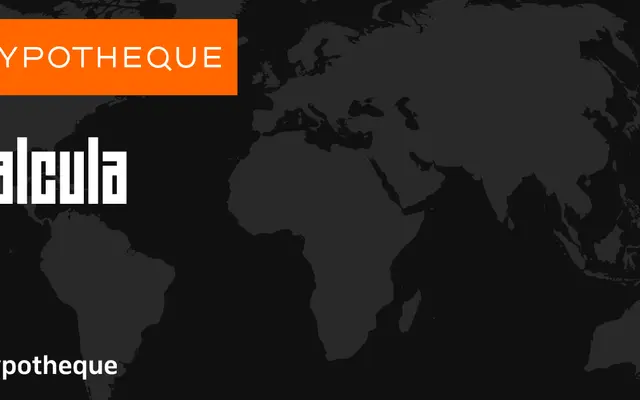
Calcula
A modular display family from Typotheque built across five visual treatments — Solid, Stripes, Stone, Stone Shadow and Shadow — each sold as a named sub-family.
Five distinct visual registers make up the family: Solid and Stripes offer flat geometric forms, Stone and Stone Shadow introduce a carved or lithographic texture, and Shadow adds dimensional depth. Each sub-family carries its own city name — Amsterdam through Edinburgh — suggesting a breadth of character across the range. The Latin glyph set includes extended characters such as Eth, pointing to coverage beyond basic Western European.
Calcula is a modular display family built from geometric components, offering five distinct visual treatments — Solid, Stripes, Stone, Stone Shadow and Shadow — that position it firmly in the display/decorative category.